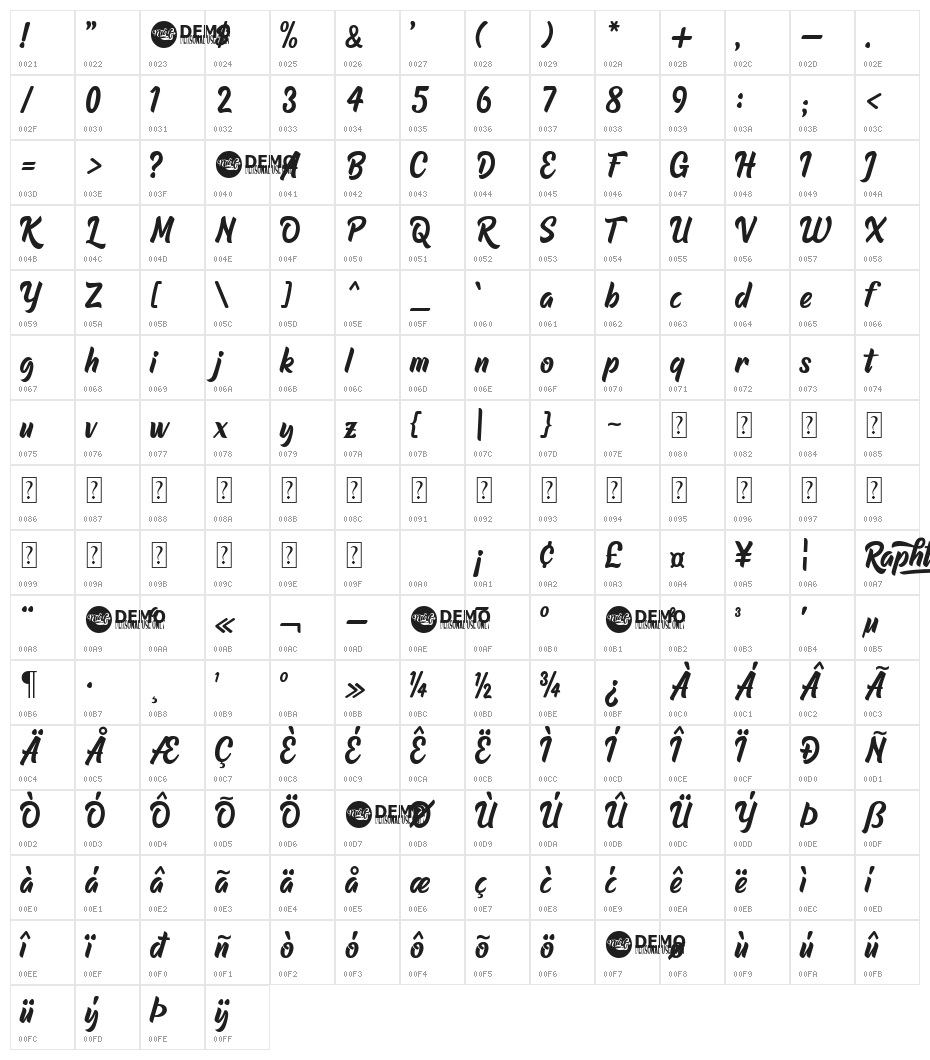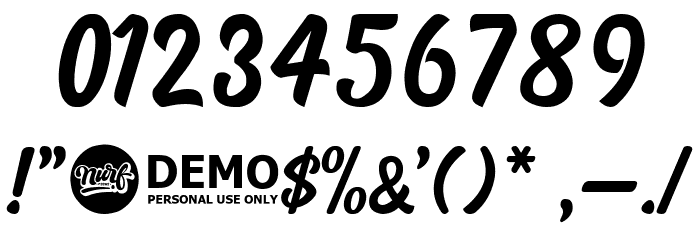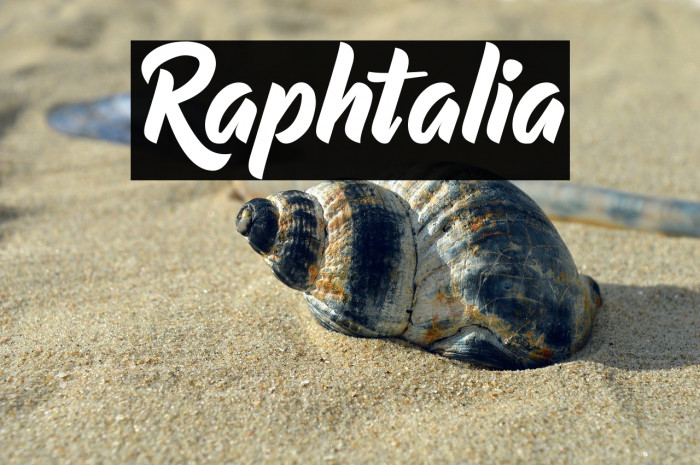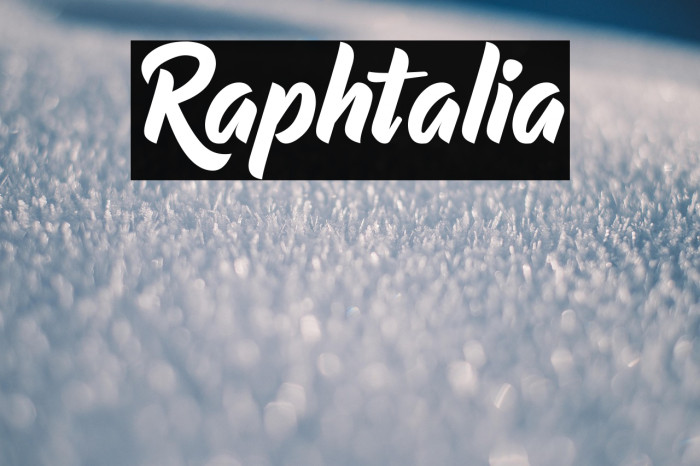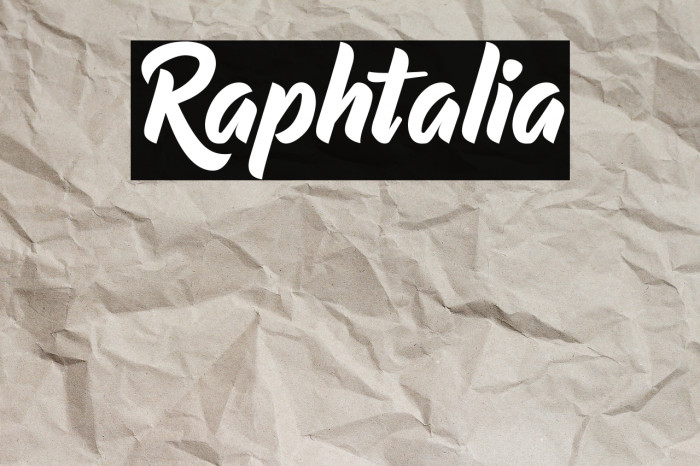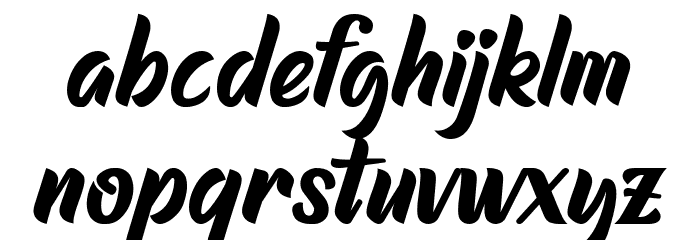
Raphtalia Font
Raphtalia Description
This font features a bold and dynamic script style with a flowing, cursive appearance. The uppercase letters are characterized by their sweeping curves and elegant flourishes, while the lowercase letters maintain a consistent rhythm with slightly exaggerated loops and tails. The numbers are bold and clear, matching the overall style of the alphabet. Special characters are designed to complement the script, adding a touch of flair. The font's energetic and lively nature makes it suitable for projects that require a personal or artistic touch.